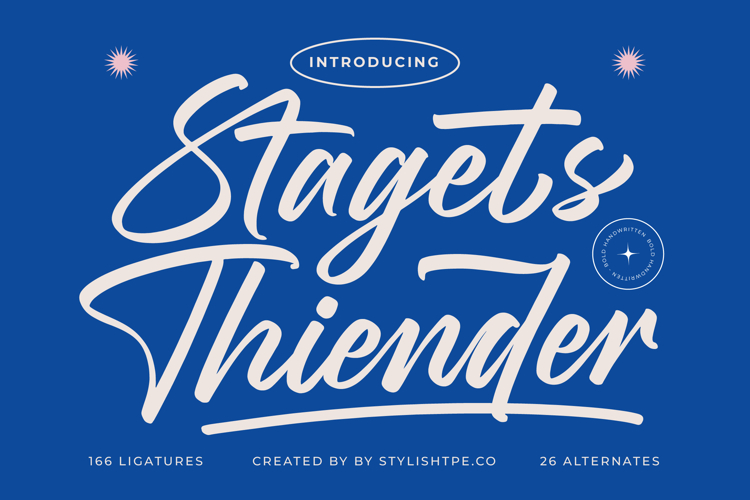
Stagets Thiender - Bold Handwritten Font
Stagets Thiender is a bold handwritten font that combines modern brush style with confident elegance. Its strong strokes, dynamic ligatures, and stylish alternates make it perfect for designs that need to look powerful, expressive, and contemporary. Featuring 166 ligatures and 26 alternates, Stagets Thiender gives designers creative freedom to build unique, bold lettering compositions with personality.
This font excels in branding. Ideal for logos, streetwear brands, sports apparel, creative agencies, and product packaging, Stagets Thiender communicates strength and originality. Its bold handwritten style ensures that branding projects stand out with authenticity and style, making it a great choice for trend-driven markets.
In editorial and publishing, Stagets Thiender adds attitude and flair. Magazines, posters, album covers, and event flyers benefit from its strong handwritten character. It creates editorial layouts that feel dynamic, artistic, and visually striking, turning text into a statement.